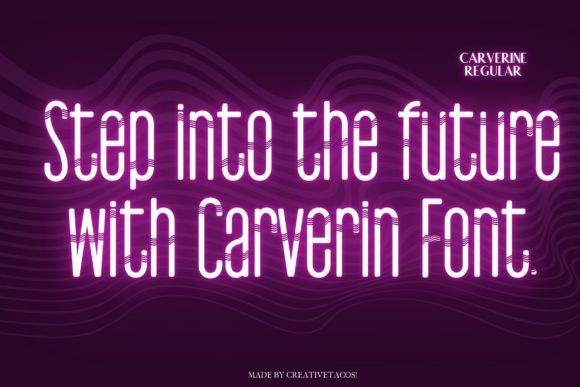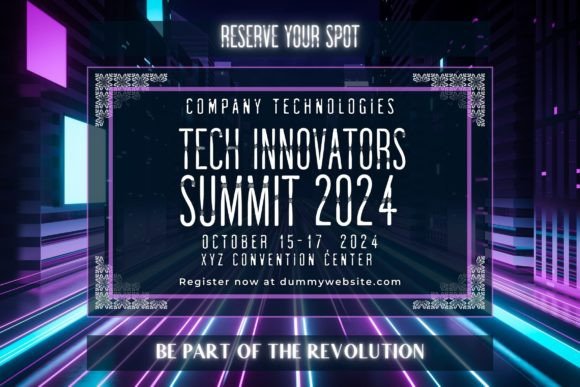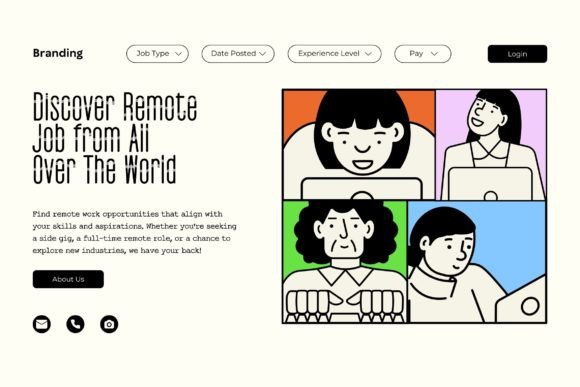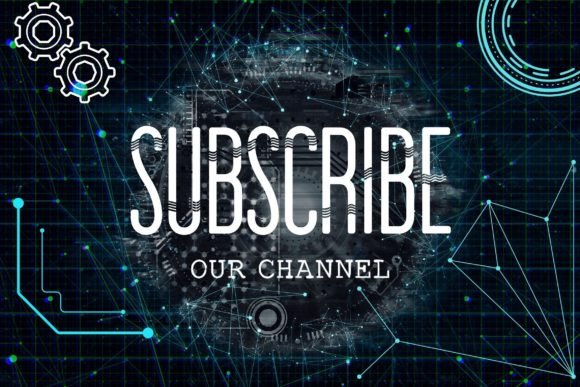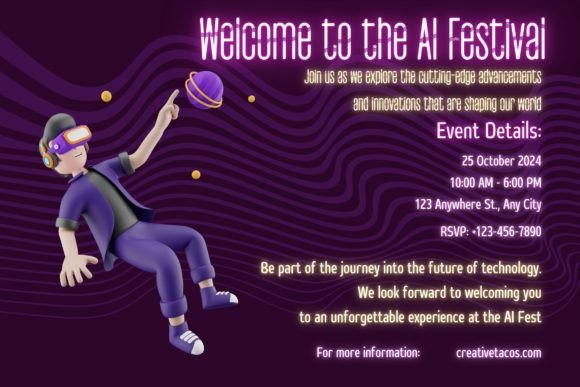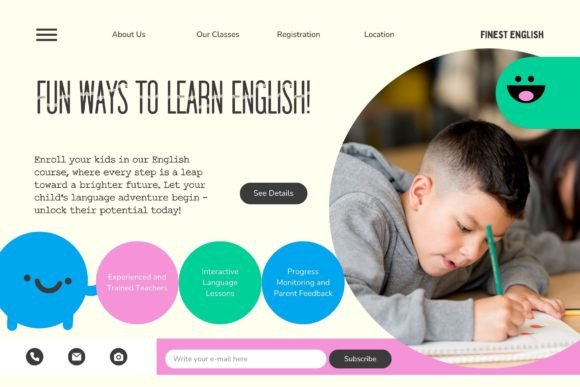
Introducing Carverine Font: The Ultimate Modern Typeface for Fresh and Futuristic Designs
In the world of typography, fonts play a crucial role in making or breaking a design. A well-chosen font can elevate your project from ordinary to extraordinary, while a poorly chosen one can have the opposite effect. If you’re a designer, craftsperson, or simply someone who loves to dabble in creative projects, you’re likely always on the lookout for unique and versatile fonts to add some flair to your work. That’s where Carverine comes in – a modern font that’s taking the design world by storm with its cool, wavy lines and futuristic vibe.
What is Carverine Font?
Carverine is a modern font that boasts cool, wavy lines in each letter, giving it a fresh and futuristic feel that’s perfect for a wide range of design projects. Whether you’re looking to create a bold logo, eye-catching title, stunning poster, or striking website header, Carverine is the perfect choice. Its unique style is sure to make your work stand out from the crowd, adding a touch of sophistication and elegance that’s hard to achieve with more traditional fonts.
Key Features of Carverine Font
- Modern and Fresh Design: Carverine’s wavy lines give it a modern and fresh feel that’s perfect for designers who want to create something new and exciting.
- Versatile: This font is incredibly versatile and can be used in a wide range of projects, from logos and titles to posters and website headers.
- Easy to Use: Carverine is easy to use in many different projects, making it a great choice for designers of all skill levels.
- Perfect for Tech and Sci-Fi Designs: The font’s futuristic vibe makes it a perfect fit for tech designs, sci-fi themes, and anything that needs a modern look.
How to Use Carverine Font in Your Designs
Carverine is incredibly easy to use in your designs, and its versatility means it can be applied to a wide range of projects. Here are just a few ideas to get you started:
- Logos: Use Carverine to create a bold and unique logo that’s sure to make your brand stand out.
- Posters: Add some flair to your posters with Carverine’s eye-catching wavy lines.
- Website Headers: Use Carverine to create striking website headers that draw visitors in.
- Digital Art: Experiment with Carverine in your digital art projects for a modern and fresh look.
- Packaging: Use Carverine to add some personality to your product packaging and make it stand out on store shelves.
Why Choose Carverine Font?
So why choose Carverine over other fonts? Here are just a few reasons:
- Unique Style: Carverine’s wavy lines give it a unique style that’s hard to find in other fonts.
- Highly Versatile: This font can be used in a wide range of projects, making it a great addition to any designer’s toolkit.
- Easy to Read: Despite its unique style, Carverine is still highly legible, making it perfect for use in body text as well as headlines.
- Futuristic Vibe: If you’re looking to create a design that feels modern and forward-thinking, Carverine is the perfect choice.
In conclusion, Carverine font is a modern typeface that’s perfect for designers who want to add a fresh and futuristic touch to their work. Its unique wavy lines, versatility, and ease of use make it a great choice for a wide range of projects, from logos and posters to website headers and digital art. Whether you’re a seasoned designer or just starting out, Carverine is definitely worth checking out. So why not give it a try and see how it can elevate your designs to the next level?